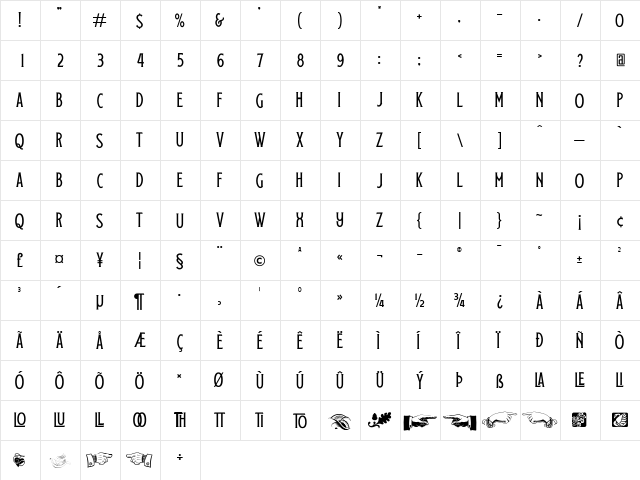
Skedaddle Regular
| Foundry | SleepyGecko |
| Designer | Steve Harrison |
Design Context for Skedaddle Typeface
Skedaddle is a composed and adaptable typeface that performs quietly and consistently across a wide range of design contexts.